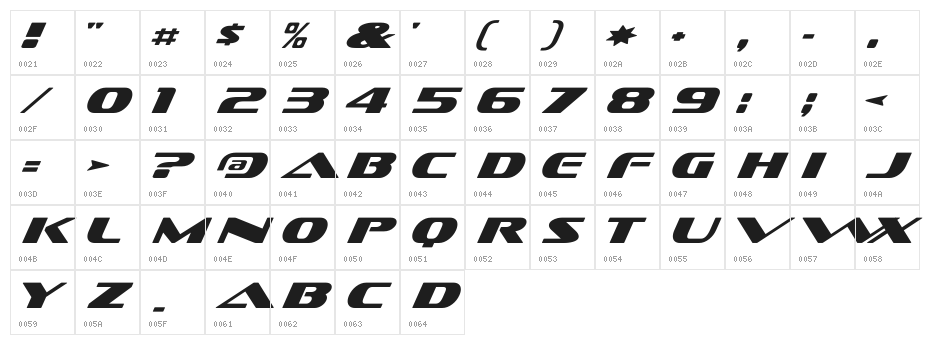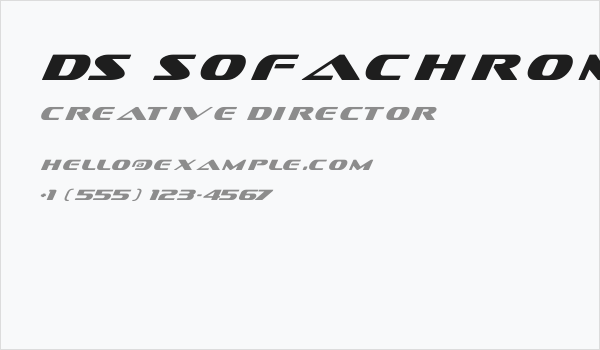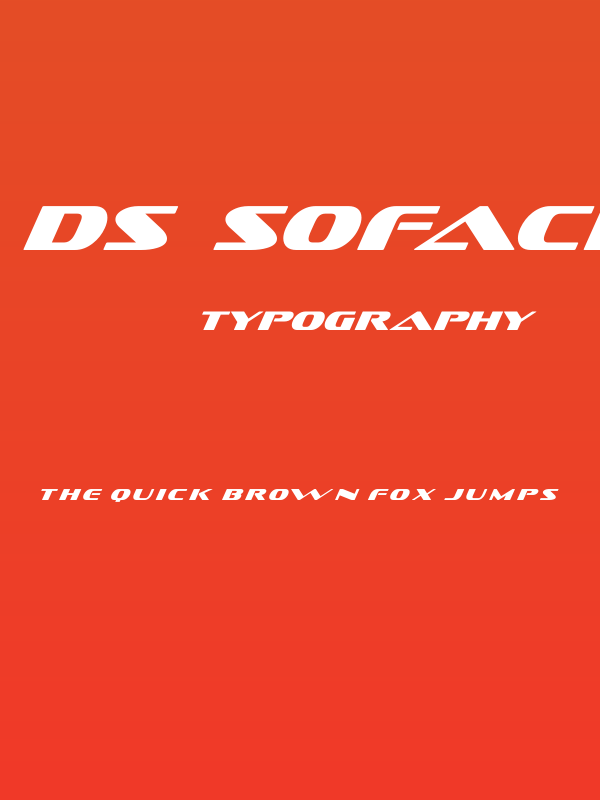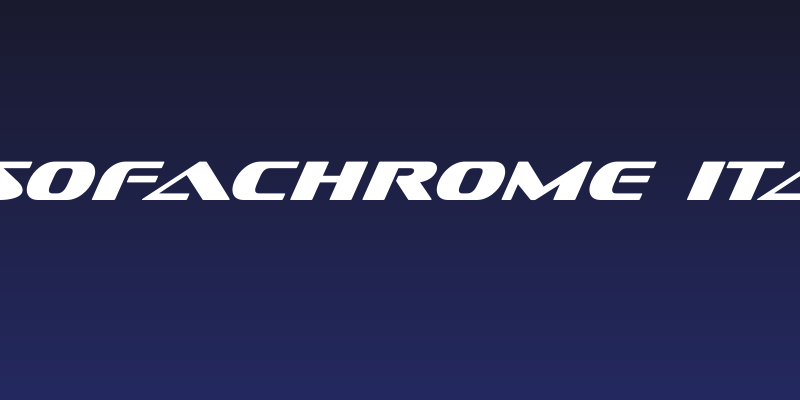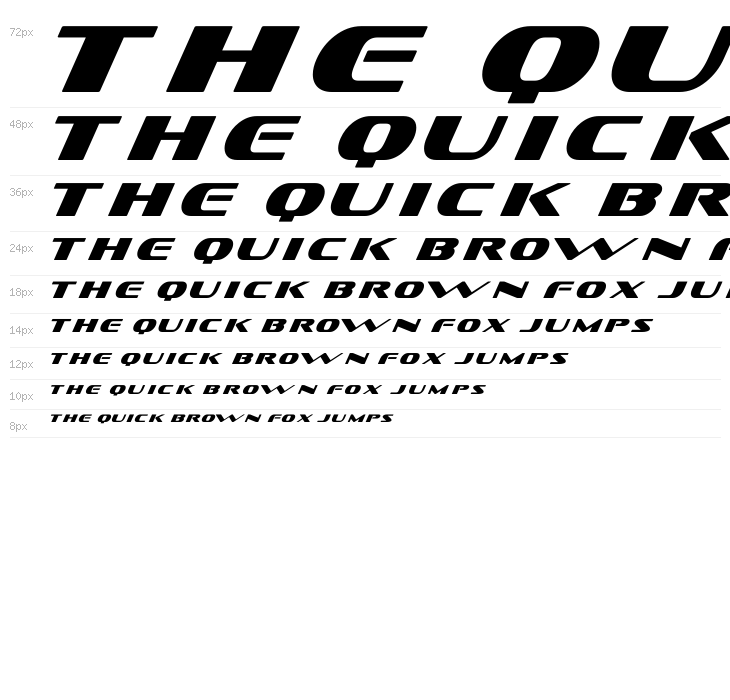
DS Sofachrome Italic Font
DS Sofachrome Italic Description
This font exhibits a futuristic and dynamic style, characterized by its italicized, forward-leaning posture. The bold strokes and angular cuts give it a sense of speed and modernity, making it ideal for projects that require a strong, impactful presence. The uppercase letters are particularly striking, with sharp edges and a sleek design that suggests movement and energy. The numerals and special characters maintain this aesthetic, ensuring consistency across all text elements. The font's unique style is both eye-catching and versatile, suitable for a variety of creative applications.